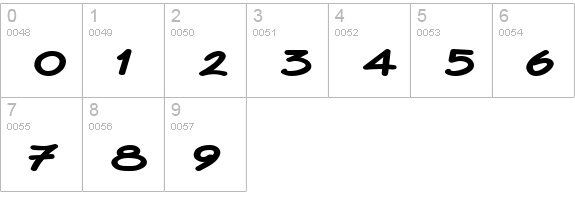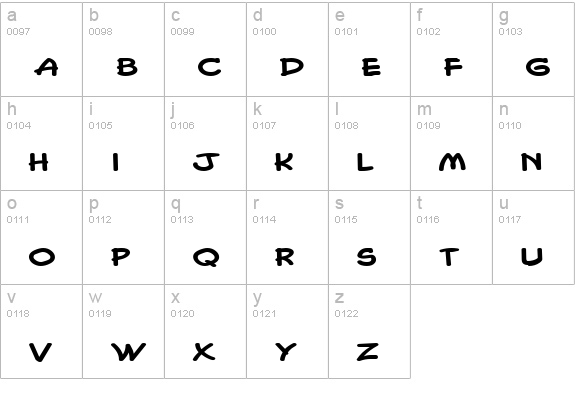
Chasm Extended Bold is a strong, high-contrast, extended-width variant in the Chasm typeface family \xE2\x80\x94 well suited to headlines, attention-grabbing titles, and strong calls-to-action.
Chasm Extended Bold is a striking and dynamic font that exudes strength and modernity. Its bold and extended letterforms make a powerful statement, perfect for headlines, titles, and branding projects. The sturdy strokes and sharp angles give this font a confident and assertive appearance, while still maintaining a sense of elegance and sophistication. What sets Chasm Extended Bold apart is not only its impressive design, but also the fact that it is available for free download at FontsMarket.com. This means that you can easily access this versatile and impactful font for your personal and commercial projects without any cost. Whether you're looking to make a bold statement with your designs or simply want to add a touch of contemporary flair, Chasm Extended Bold is sure to impress.